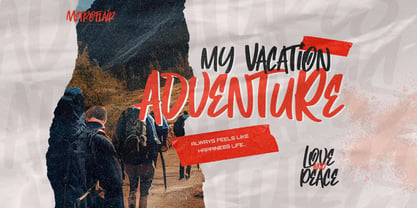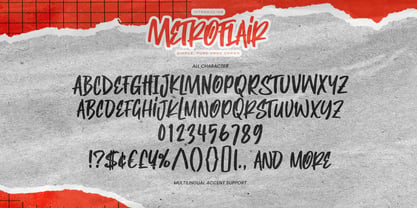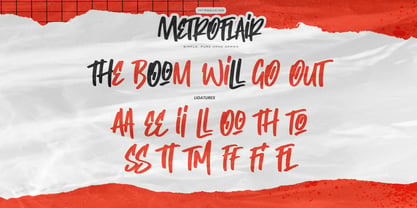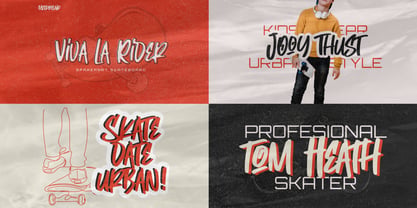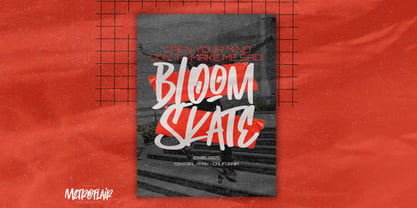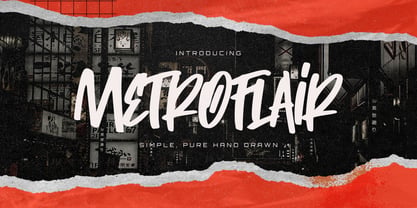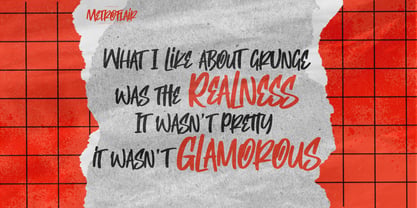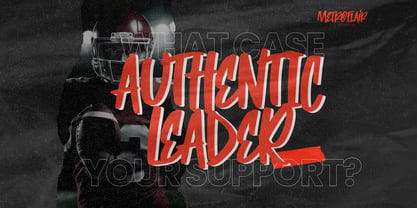
Metroflair
by Gassstype
The Metroflair Font Family was designed by Abdul Malik Wisnu and published by Gassstype. Metroflair contains 1 styles. More about this family
Metroflair is a bold and expressive hand-drawn display font inspired by urban energy, street culture, and raw creative aesthetics. With its spontaneous strokes and organic character, Metroflair brings a strong handmade personality to every design. Perfect for posters, branding, apparel, album covers, packaging, social media graphics, headlines, logos, and editorial designs. Designed to make a statement, Metroflair combines a rough handmade feel with a clean and confident presence — ideal for projects that need an authentic, rebellious, and contemporary look. Metroflair is simple, pure, and hand-drawn.